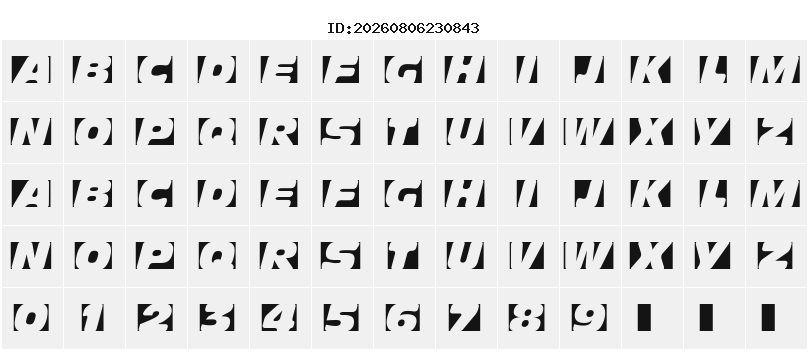
Obliquo Preview
• Font Name: Obliquo
About Obliquo.ttf
Obliquo.ttf is a modern, elegant sans-serif font designed for ultimate readability and visual harmony. Perfect for branding, headlines, web design, and print materials.